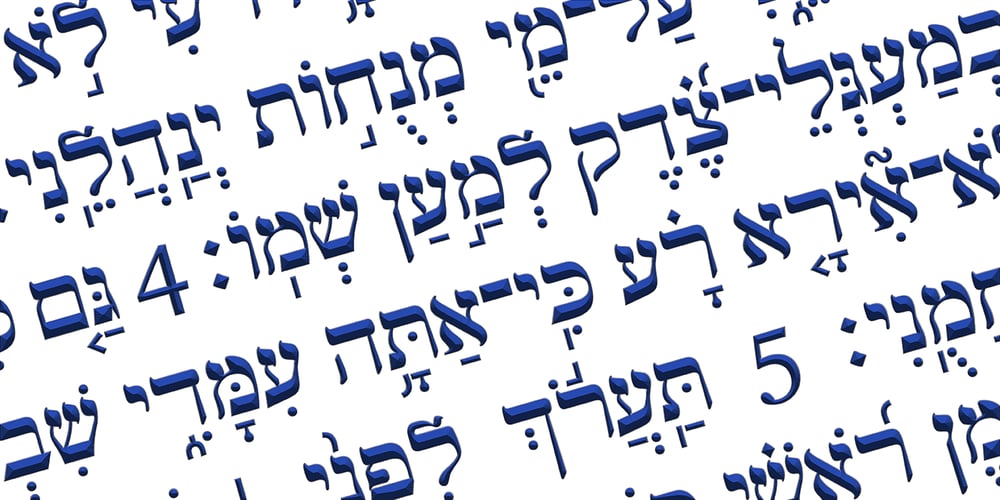
Hebrew Classic Tanach
Hebrew Classic Tanach font
Hebrew Classic Tanach Font Family was designed by Sami Artur Mandelbaum and published by Samtype. Hebrew Classic Tanach contains 1 styles and family package options. This is a font to build an hebrew Bible (Tanach) or any Hebrew prayer book.Hebrew Classic Tanach has all unicode hebrew marks and others like, ShevaNa, Dagesh Chazak, Qamats Katan and Cholam Chaser.You can even hide marks You don’t want to use.This font has a complex and exclusive programmation of opentype features.